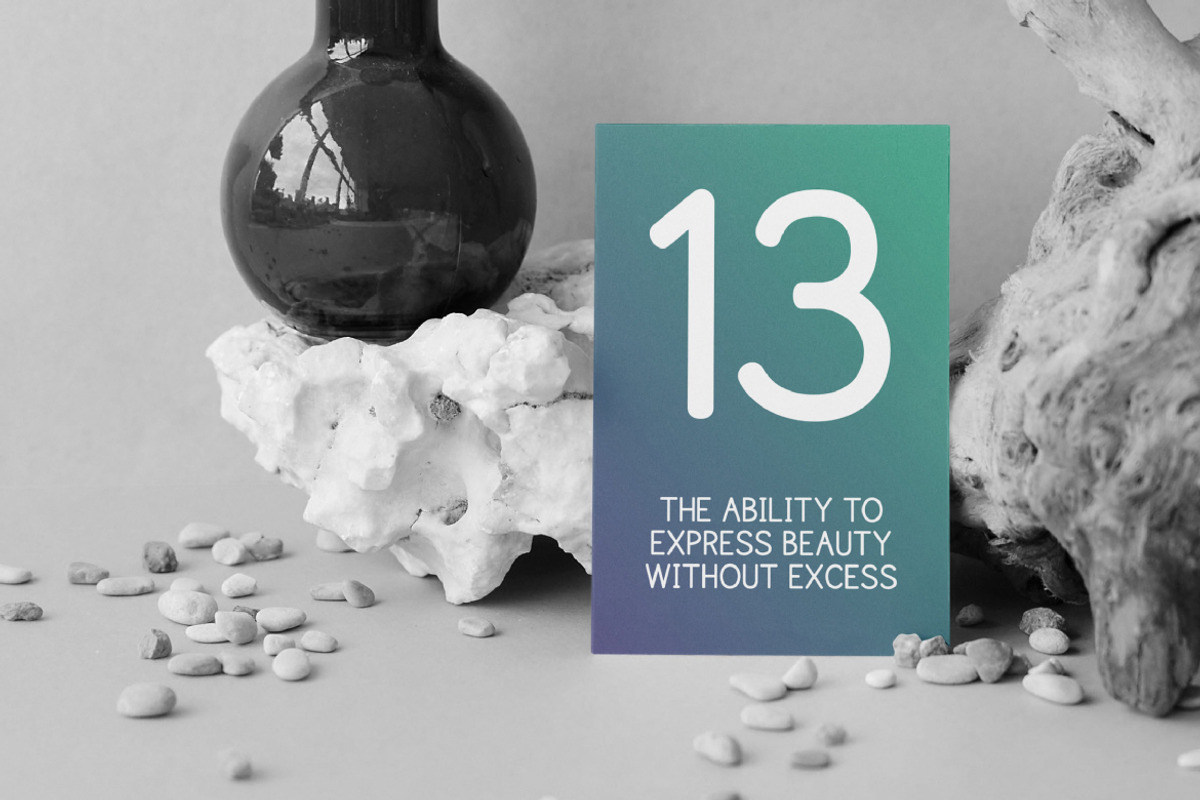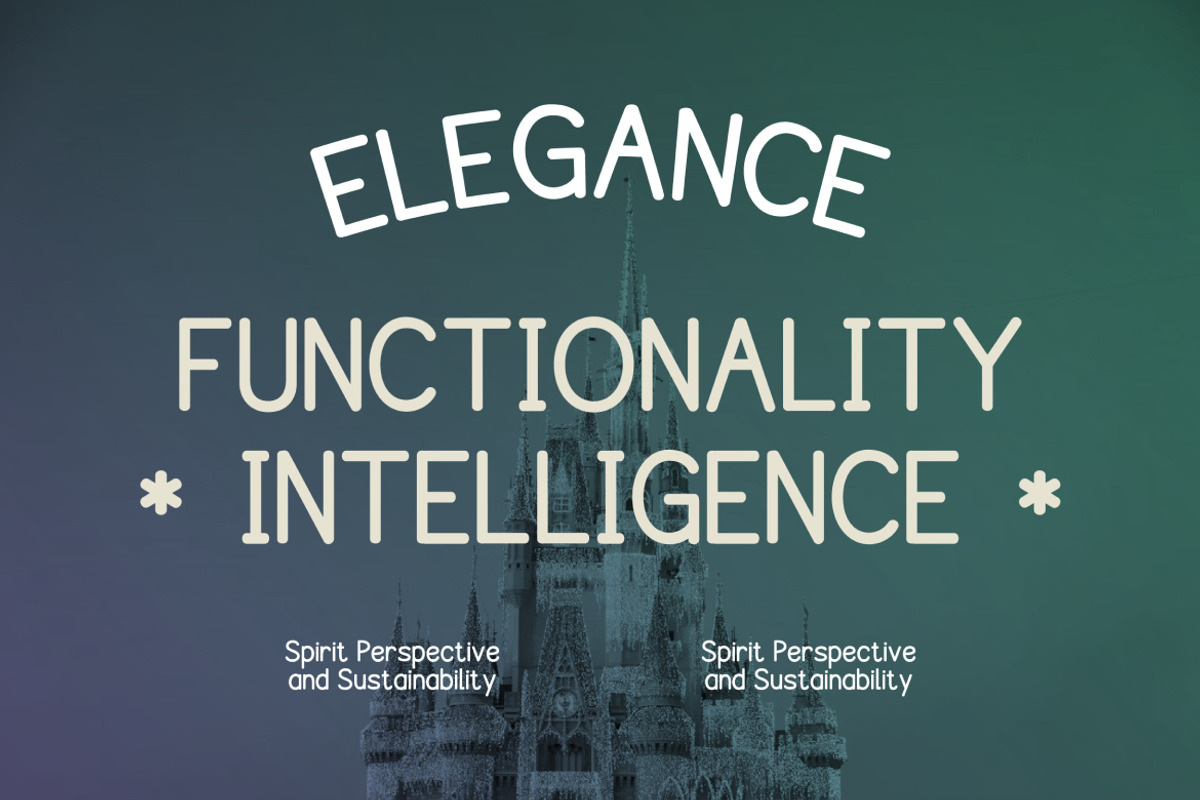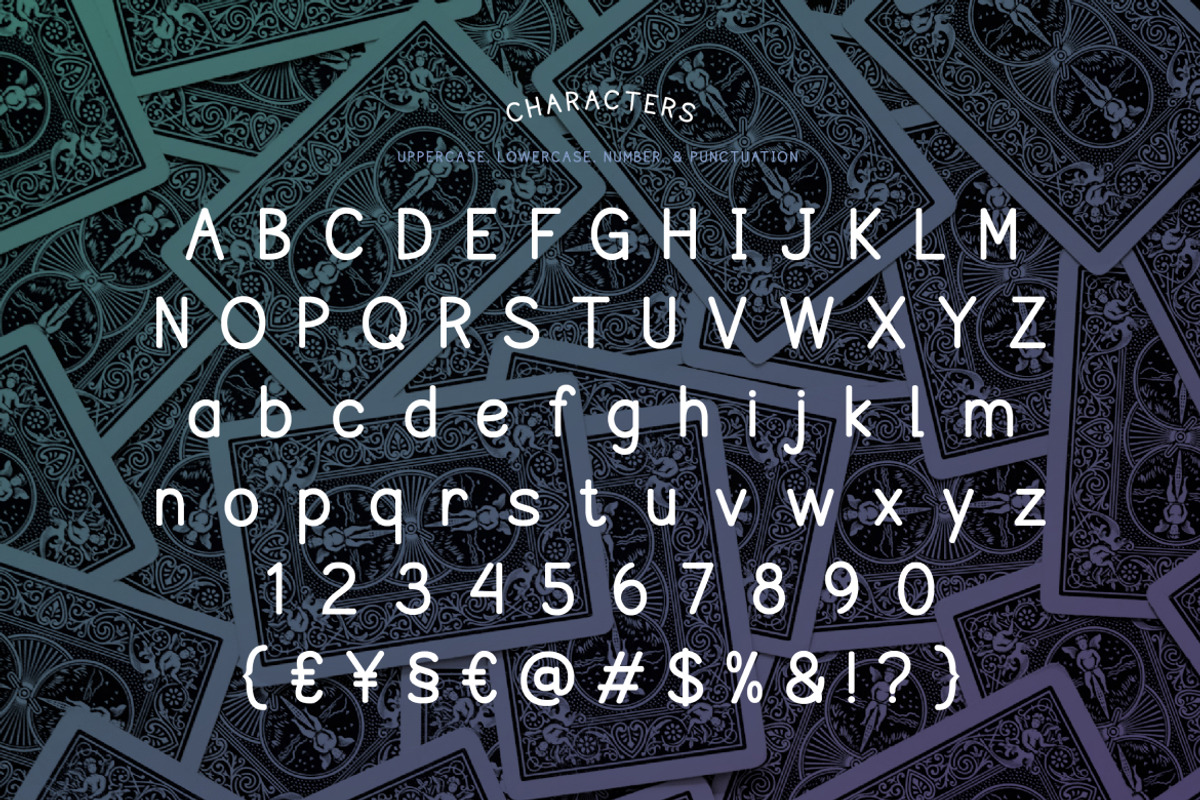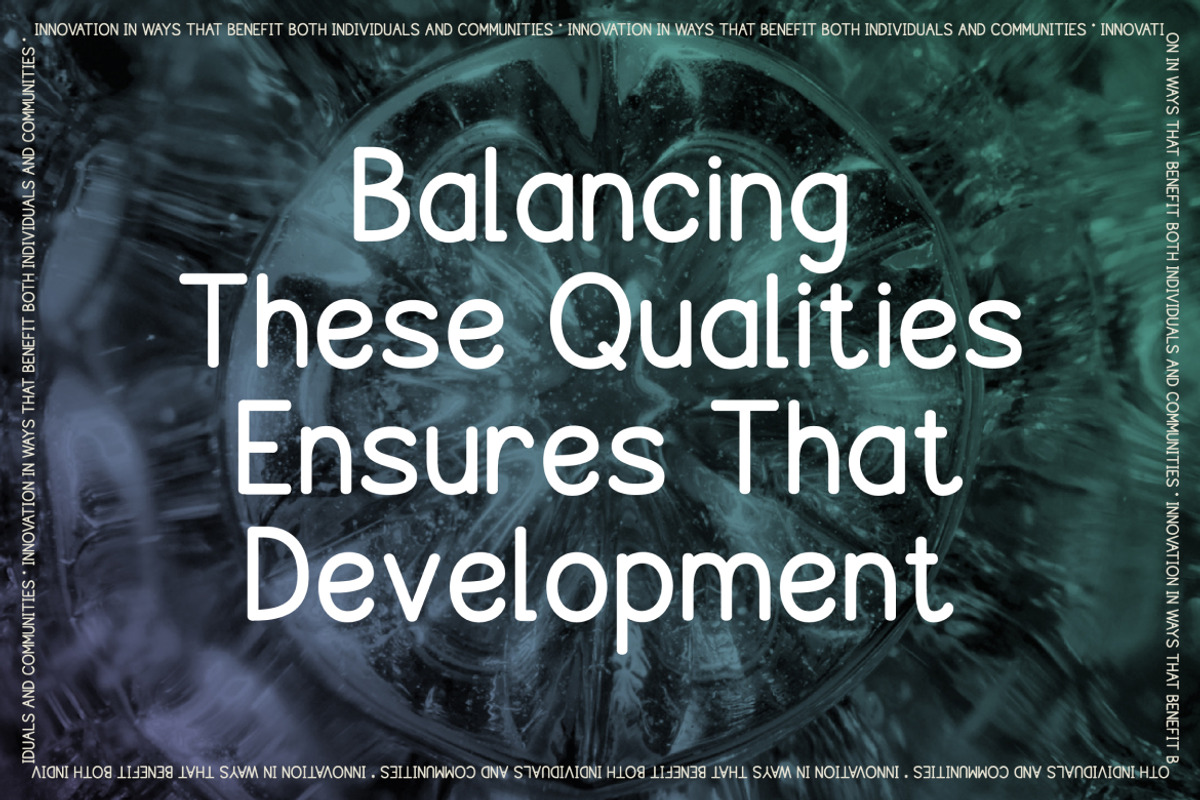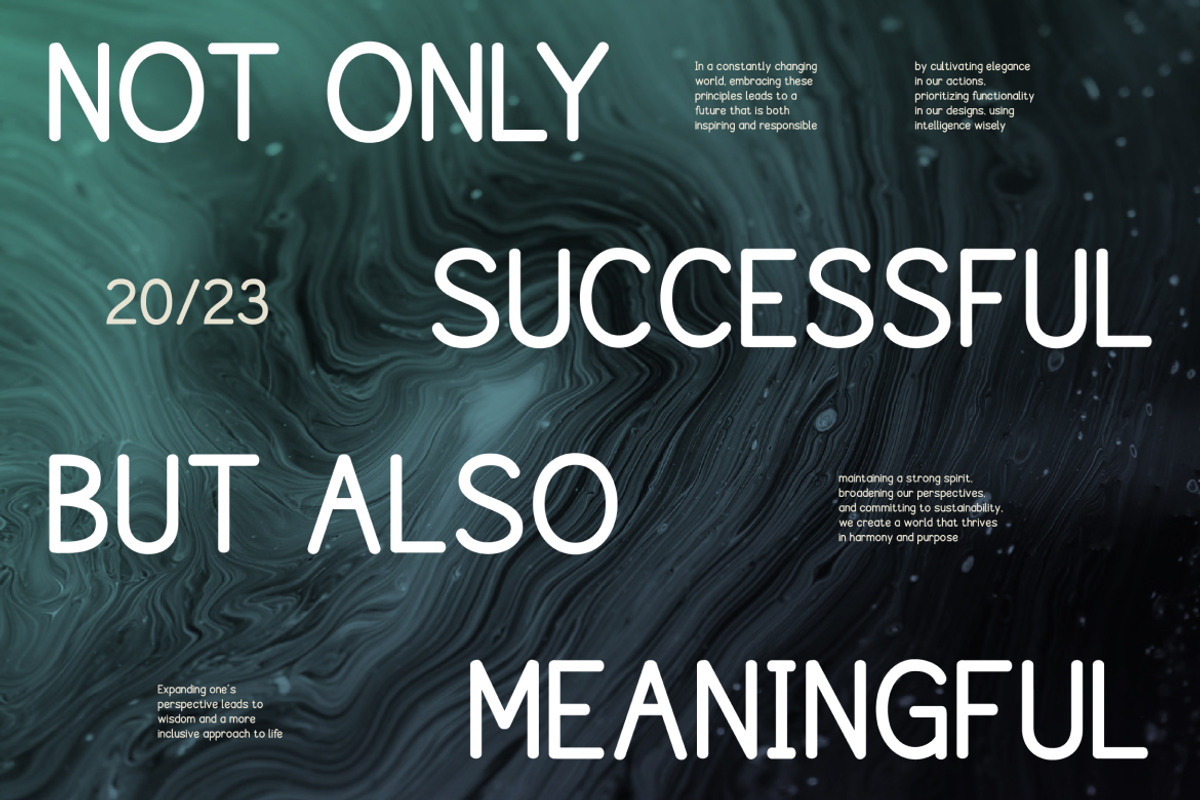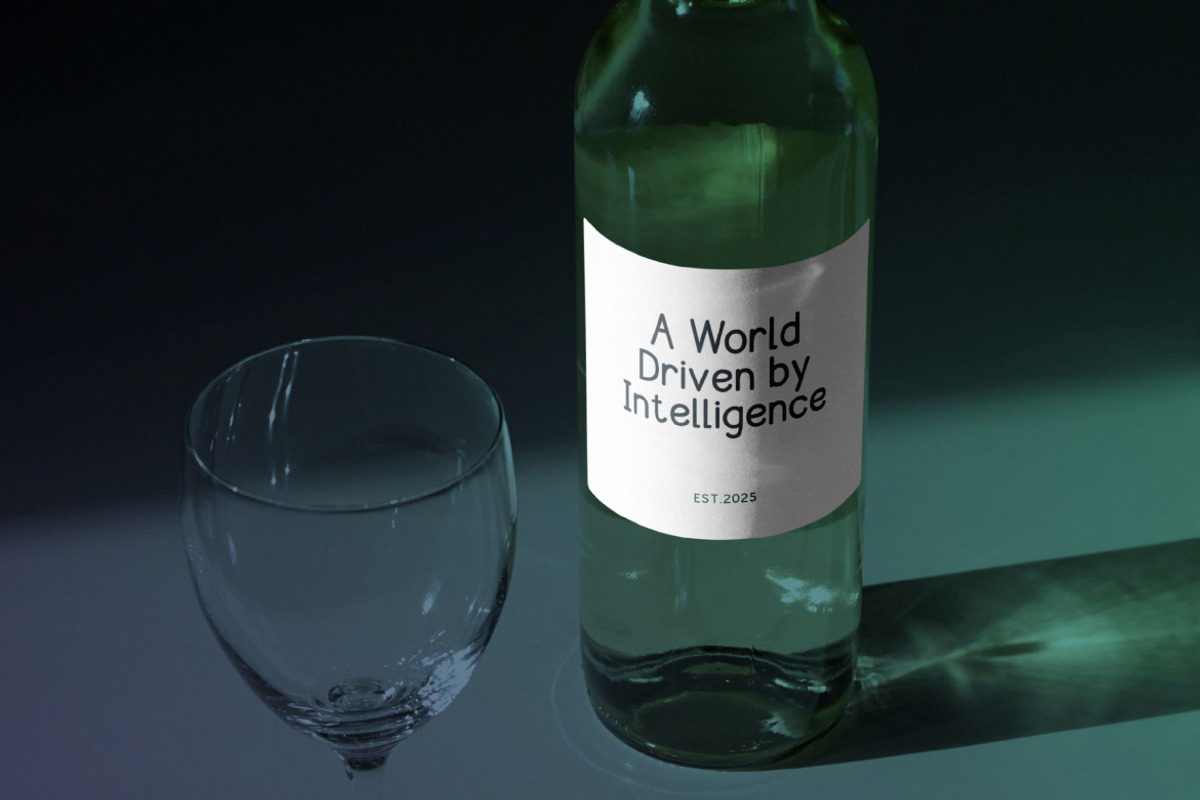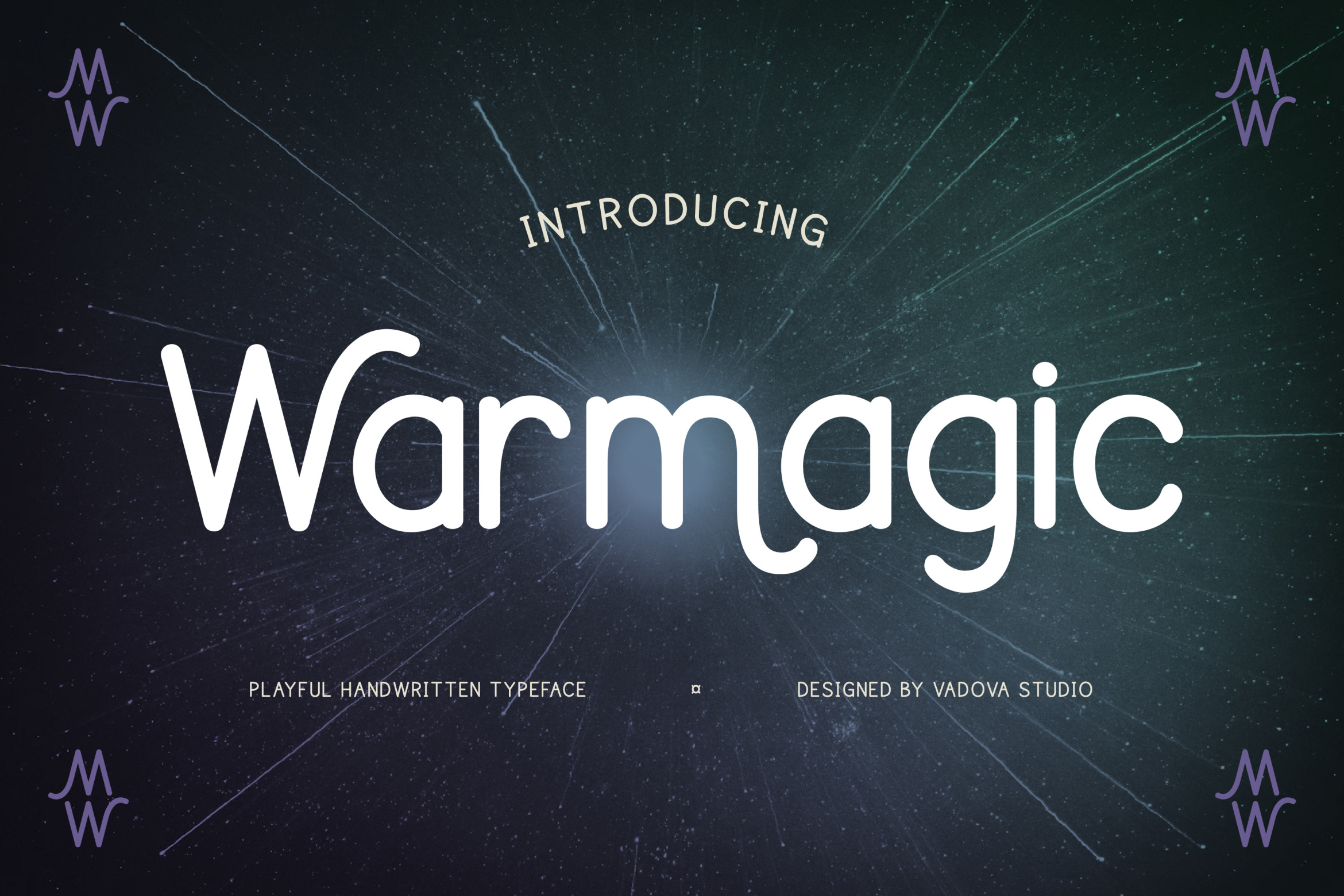
Warmagic Playful Handwritten Font
Warmagic is a playful handwritten typeface with smooth rounded strokes and friendly character design. Its clean rhythm and soft curves bring warmth and approachability to any layout, perfect for modern branding and creative visual storytelling.
The balance between simplicity and charm makes Warmagic stand out in both digital and print applications — from packaging to logo design.
- Playful handwritten structure with rounded form
- Uppercase, lowercase, numerals, and punctuation
- Consistent weight and spacing for readability
- Ideal for branding, product packaging, social media posts, and greeting cards
- Adds a warm, approachable tone to creative designs
- Great for quotes, invitations, and handmade product branding
Relevance and Use Cases is perfect for handmade branding, children’s products, greeting cards, packaging, logo design, lifestyle blogs, and playful digital content.
Bring a touch of magic and warmth to your words with Warmagic — the rounded handwritten font for creative storytellers.